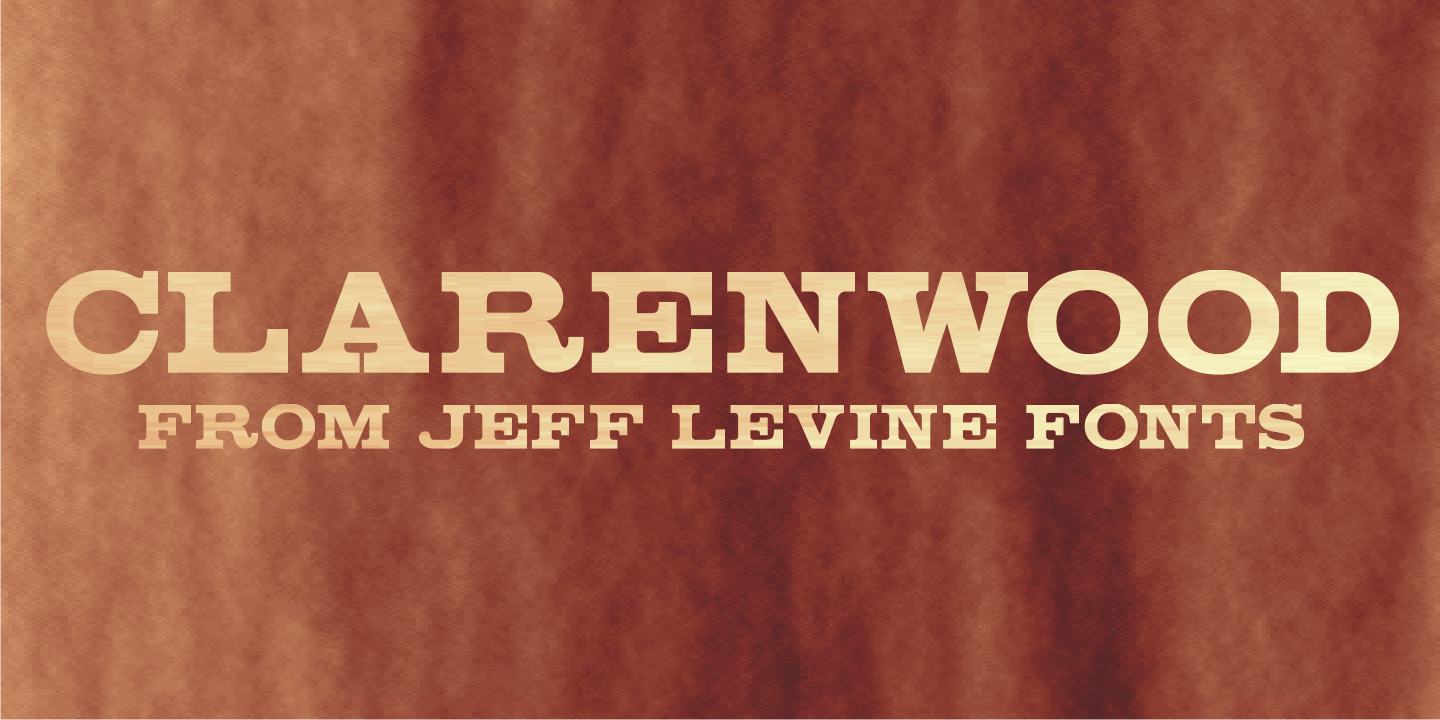
Clarenwood
Based on some examples of a Clarendon-inspired wood type design, Clarenwood JNL is a bold and effective titling font which harkens back to old times and advertising on a grander scale.
Clarenwood JNL Regular by Jeff Levine Fonts